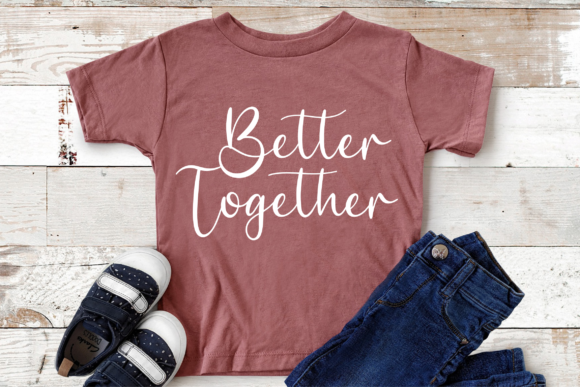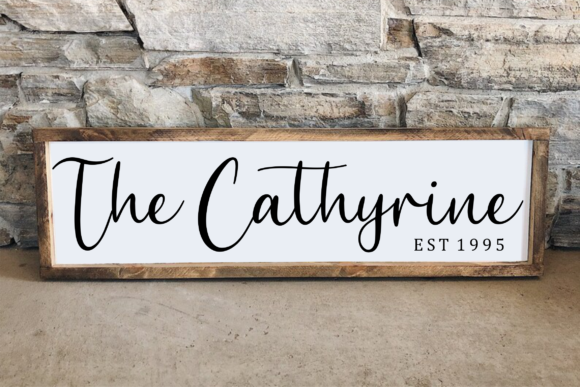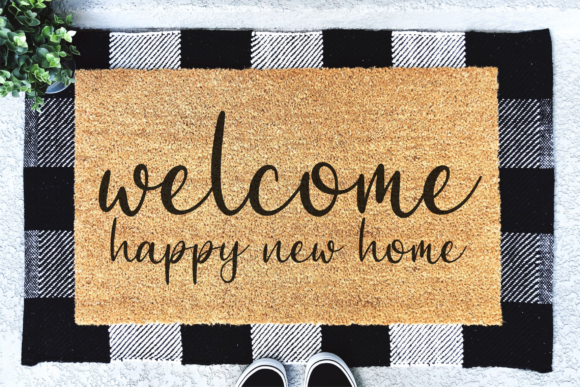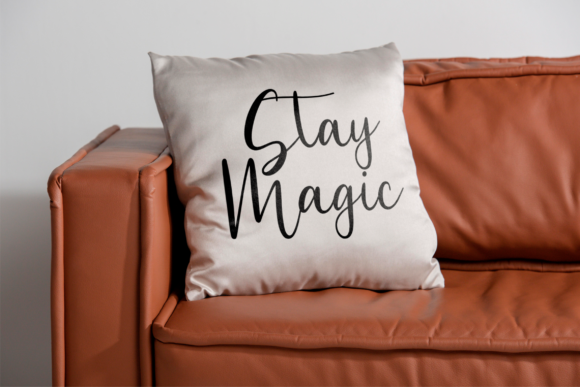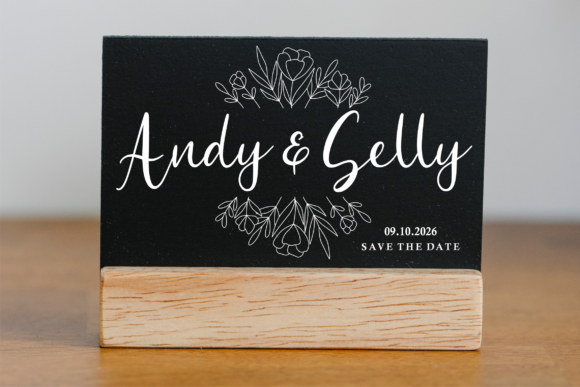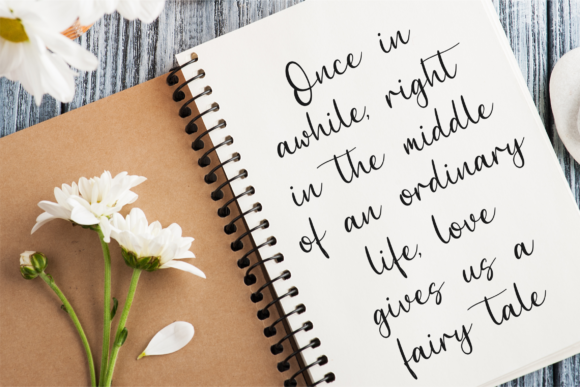
Unleash Your Creativity with Beasttica Font: A Luxurious Handwritten Typeface
Are you a designer or crafter looking for a unique and stunning font to elevate your design projects? Look no further than Beasttica Font, a beautiful and light handwritten typeface that is sure to add a luxury spark to any creative endeavor. In this article, we’ll dive into the features and benefits of Beasttica Font, and explore how it can help you take your designs to the next level.
A Unique and Luxurious Handwritten Font
Beasttica Font is a carefully crafted handwritten font that boasts a distinctive feel and a stunning impact. Its elegant and refined lines make it perfect for a wide range of design projects, from branding and packaging to wedding invitations and digital marketing materials. Whether you’re looking to create a sophisticated and luxurious look or a playful and whimsical one, Beasttica Font is the perfect choice.
One of the standout features of Beasttica Font is its PUA (Private Use Area) encoding. This means that you can access all of the amazing glyphs and ligatures with ease, giving you unparalleled creative control over your designs. With Beasttica Font, you can effortlessly add flourishes and swashes to your text, creating a truly unique and eye-catching look that sets your designs apart from the rest.
Beasttica Font is a versatile typeface that is perfect for designers and crafters of all levels. Whether you’re a seasoned professional or just starting out, this font is easy to use and adaptable to a wide range of design projects. From creating stunning social media graphics to designing beautiful wedding stationery, Beasttica Font is the perfect tool to help you bring your creative vision to life.
Key Features of Beasttica Font
- Beautiful and light handwritten font: Beasttica Font features elegant and refined lines that give it a luxurious feel.
- Unique feel and stunning impact: This font is sure to add a touch of sophistication and elegance to any design project.
- PUA encoded: Easily access all of the amazing glyphs and ligatures to take your designs to the next level.
- Luxury spark: Add a touch of luxury to any design project with Beasttica Font’s elegant and refined lines.
How to Use Beasttica Font in Your Designs
Tips and Tricks for Getting the Most Out of Beasttica Font
- Experiment with different font sizes: Beasttica Font looks great in a variety of font sizes, from large headings to smaller body text.
- Play with glyphs and ligatures: Use the PUA encoded glyphs and ligatures to add flourishes and swashes to your text.
- Pair with other fonts: Beasttica Font pairs well with a variety of other fonts, so don’t be afraid to experiment with different combinations.
| Font Name | Beasttica Font |